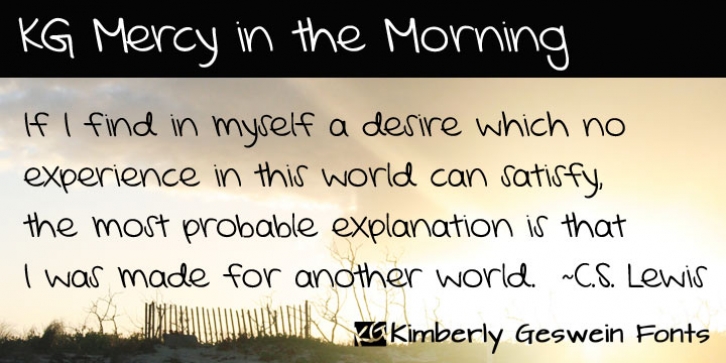
KG Mercy In The Morning was designed by Kimberly Geswein and published by Kimberly Geswein. KG Mercy In The Morning contains 1 style.
This authentic, natural handwriting is slightly bubbly and slightly left-leaning.